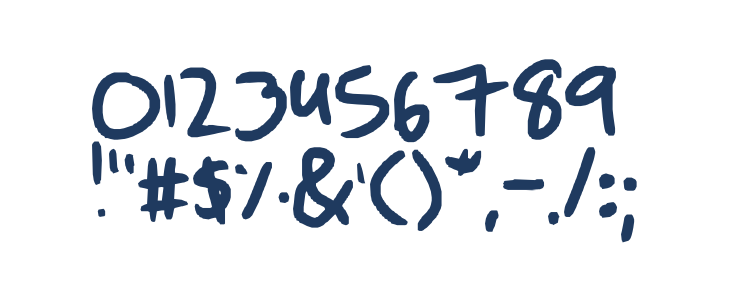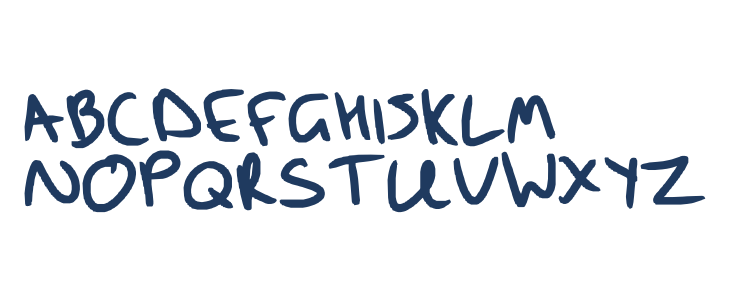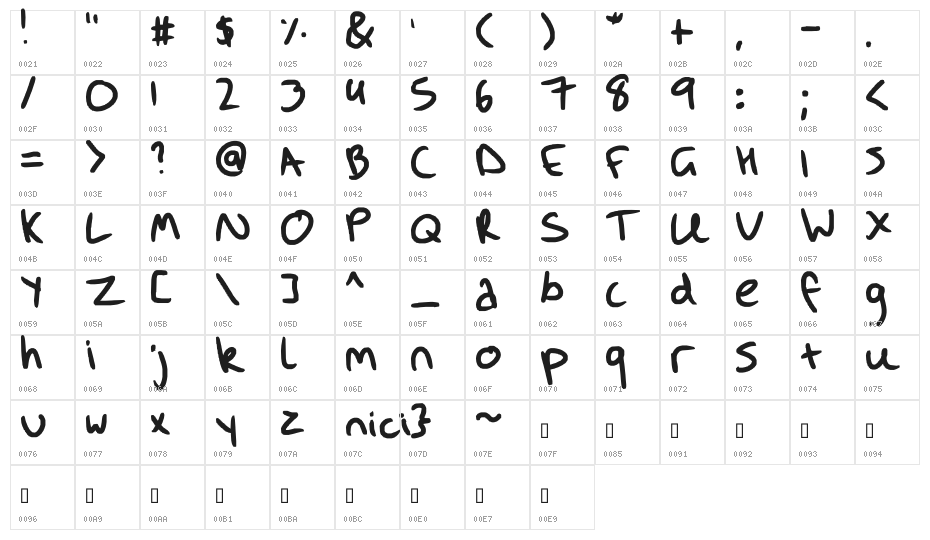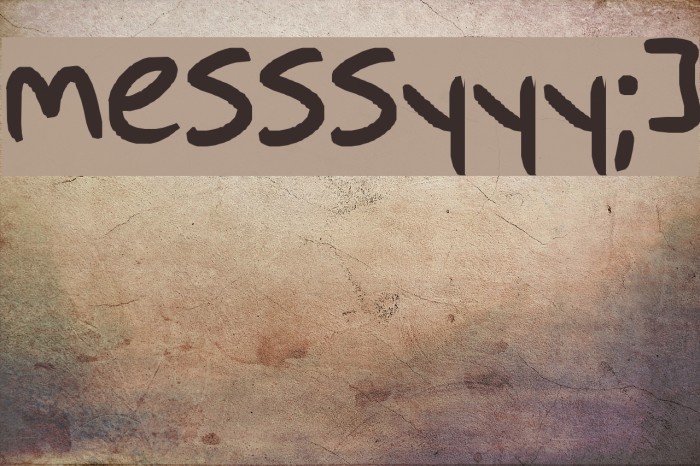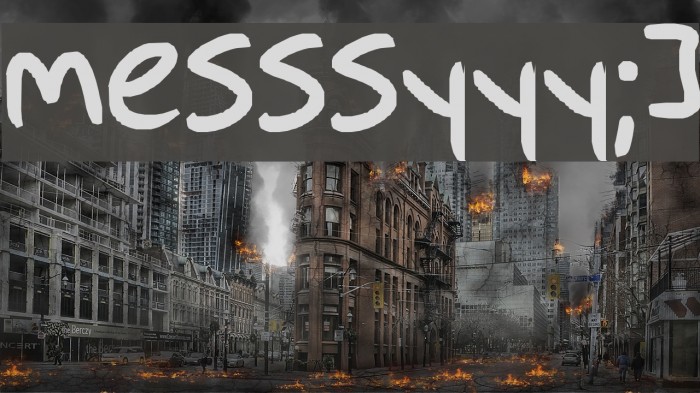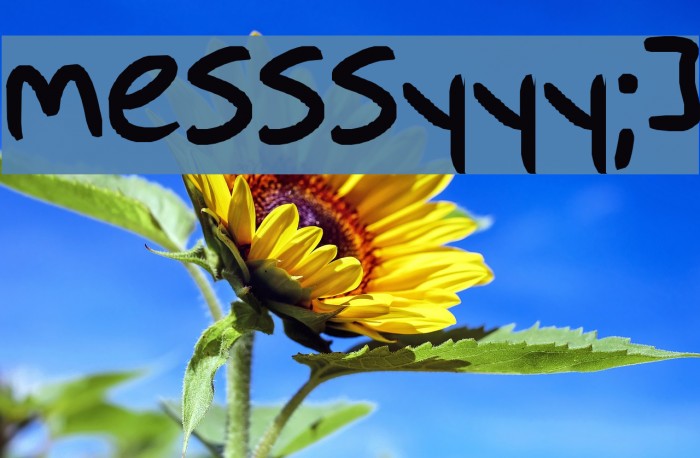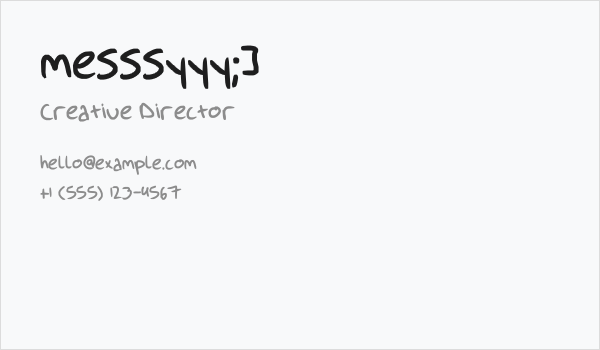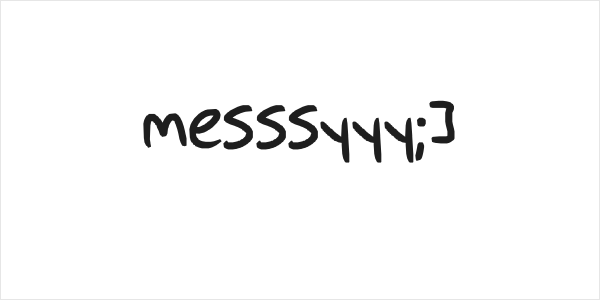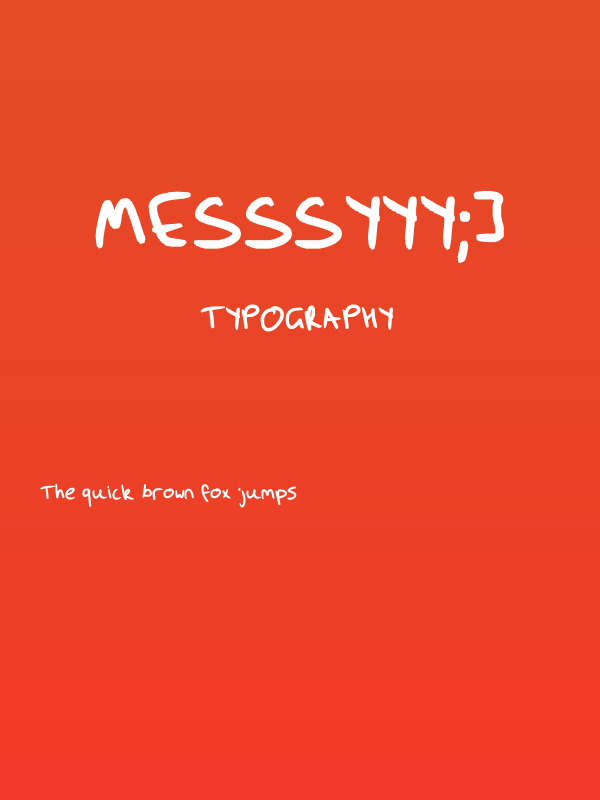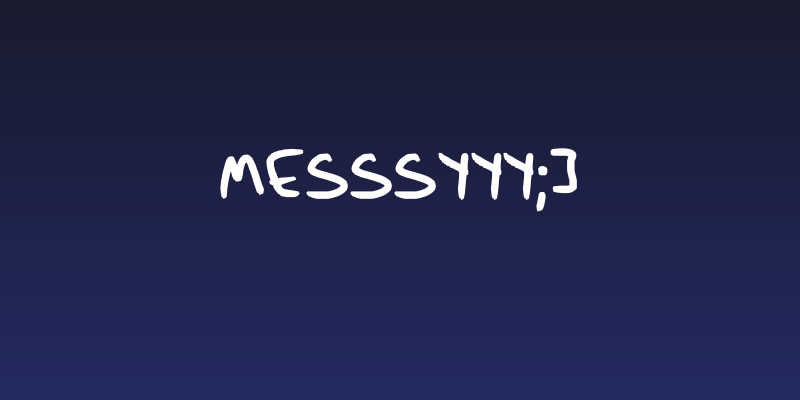
messsyyy;] Font
messsyyy;] Description
This font exudes a playful and casual handwritten style, characterized by its irregular and slightly messy strokes. The letters are bold and rounded, giving off an informal and approachable vibe. The uppercase and lowercase letters maintain a consistent style, with a slight slant that adds to the dynamic feel. Numbers and special characters follow the same aesthetic, ensuring uniformity across all elements. The overall look is reminiscent of a quick, personal note or doodle, making it perfect for projects that require a touch of personality and warmth.
| Use Case | Headlines, Informal notes, Creative projects |
| Proposed Projects | Ideal for greeting cards, children's books, personal blogs, and casual branding. |